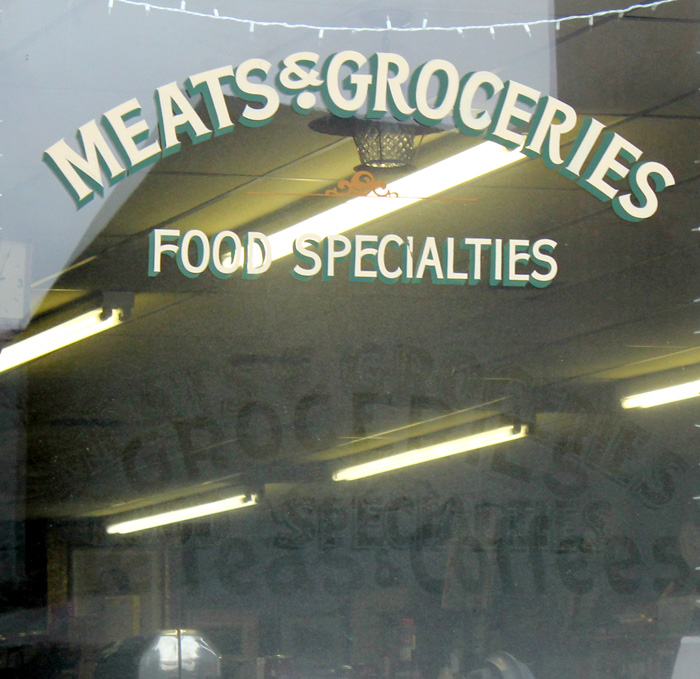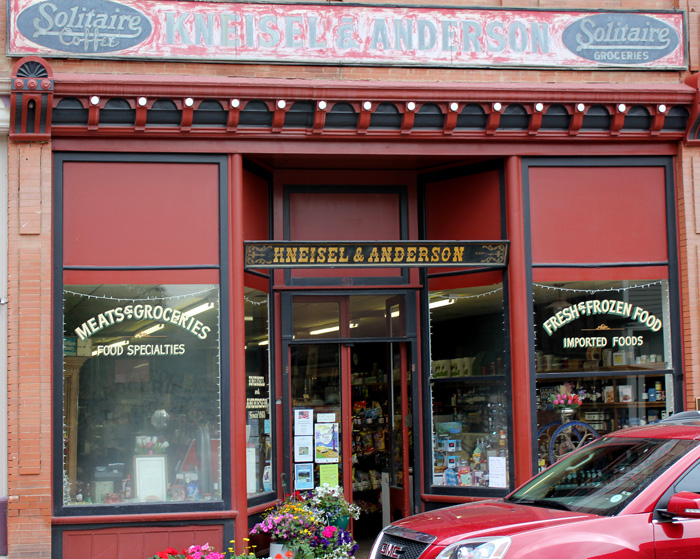
Dublin signwriters short film
This is a short film about Dubilin signwriters, enjoy
Called gentlemen of letters
Who/what is the one-name guy that's lit like a wanted poster?
Signwriters in your part of the world have an abundant, rich history of the craft.
He is Shay D. Meser he is only allowed to paint shadows!
I enjoyed watching your film. I have an observation at 00:57 that you may be able to explain or describe. In that film frame a partial bit of the "E" shows in the upper right of the frame but it evokes a question for me. It depicts the window being lettered from the outside, but it also appears that the letters are also present on the inside(from the reflected glare and raised texture in the black paint). Was this sign lettered on both sides of the window? Or over an older existing internal sign that would soon be removed?
Here in the states I seem to find that very old window signs were painted on the outside of the stores, while most of the newer ones are painted on the inside(maybe to insure a longer life due to the shorter durability of today's low VOC and lead free paints). I'm sure it is faster to paint a sign as right reading from the outside, than it is to paint in reverse from the inside. But on the outside it must endure regular cleaning and squeegee wear from the window cleaning service.
That was odd to me bar the odd seasonal window splash I have only ever worked in reverse from the inside, Dublin is well worth a visit for any glass
man lots of stuff off the tourist tracks
E. C. Mathews talks about painting signs from the outside of the window in one of his books. I think it was a lot more common back then in the pre-war era.
When I visited Georgetown in Colorado (where they filmed part of Every Which Way But Loose, starring Clint Eastwood)
some of the old store fronts still had glass windows that dated back to the town's active mining days.
Being an old glass guy, I don't just look at glass, I LOOK at glass.
While pressing my nose to some of those old windows, I discovered that by looking at several old store windows at an extremely low angle with the sky in reflection, that the windows showed a distinct history of the businesses that had once occupied these stores. What had caused these faintly ghosted registers of previous tenants to be permanently sand etched into these windows? I soon found the answer upon finding that several early windows still had hand painted letters on the outside of the store's window. This brushed on paint had acted as a form of sand blast resist, preserving and protecting the underlying glass from flying bits of sand and debris when winds would kick up through the many years. You could actually judge an earlier tenant from a later one by the amount of pecking within the letter strokes as they were guarded against the wind driven erosion through the years.
In a similar vein, have you noticed on old wood signs how the background is eaten away, while the lettering is in better shape - sometimes the lettering is even raised above the background enough to feel with a fingernail? I'm thinking especially of signs in the country, or on Forest Service trails; and on wooden boards, not plywood. My best guess is that it is from paper wasps digging little bits of wood to use in making their nests - it seems unlikely, but I have seen them doing it.
Sandblasting, killer wasps - it's a wonder that anything remains from The Old Ones.